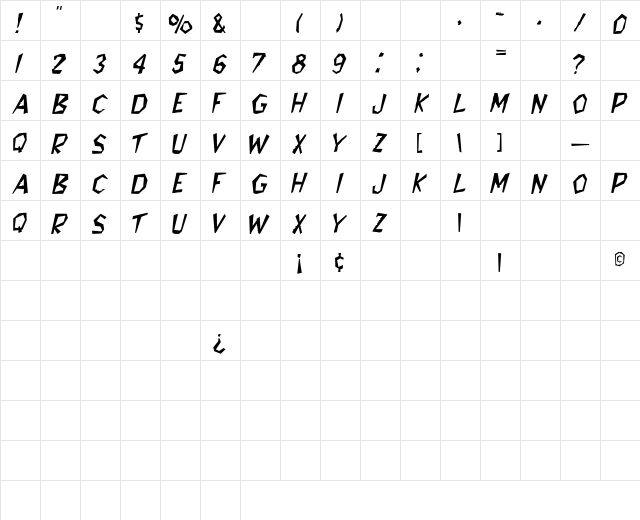
King Caps Regular Free Font
King Caps Regular
Design Context for King Caps
King Caps is a composed and adaptable typeface that performs quietly and consistently across a wide range of design contexts.